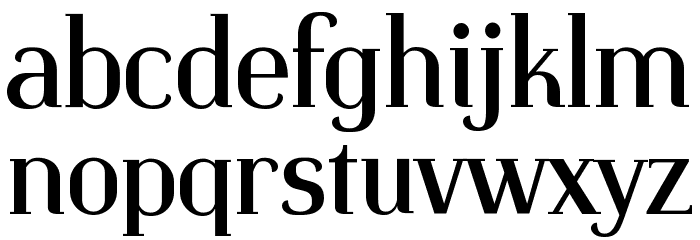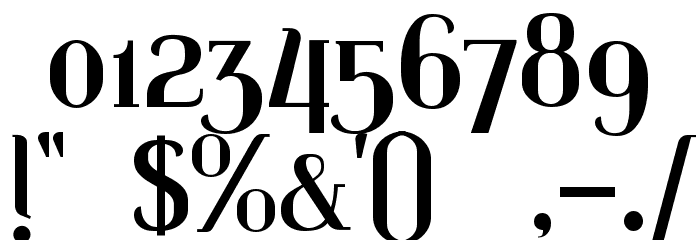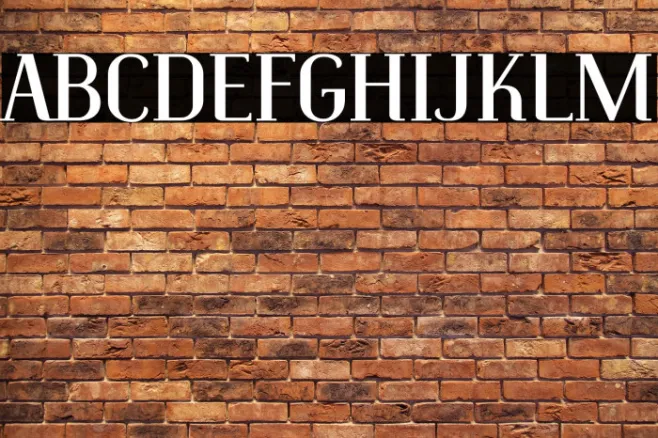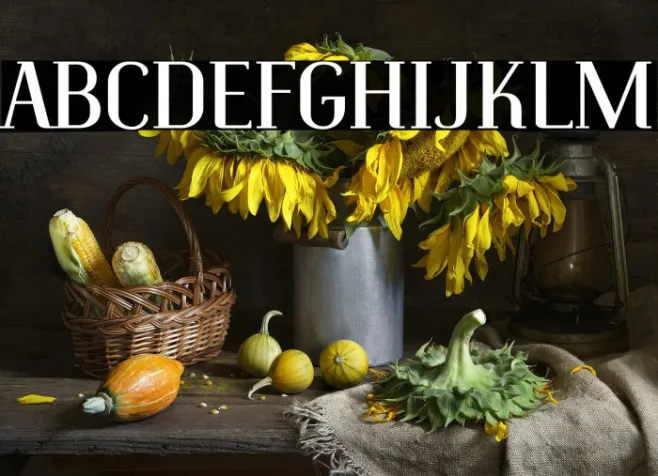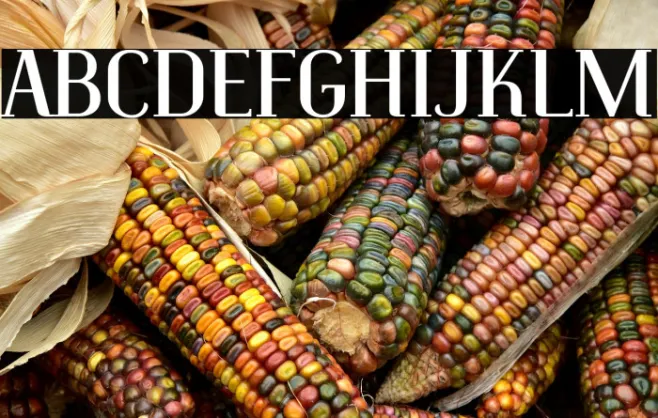
Identica Font
This font exhibits a refined and elegant serif style, characterized by its high contrast between thick and thin strokes. The uppercase letters are bold and commanding, while the lowercase letters maintain a graceful and flowing appearance. The numerals are distinct and well-proportioned, ensuring readability. Special characters are designed with the same attention to detail, making them suitable for various applications. The overall design is classic yet modern, providing versatility for both traditional and contemporary projects.
A refined serif font with high contrast and elegant strokes.
- Font: Identica
- Proposed Projects: Ideal for editorial design, book covers, branding, and luxury product packaging.
- Category: Serif
- Overall Style: Classic